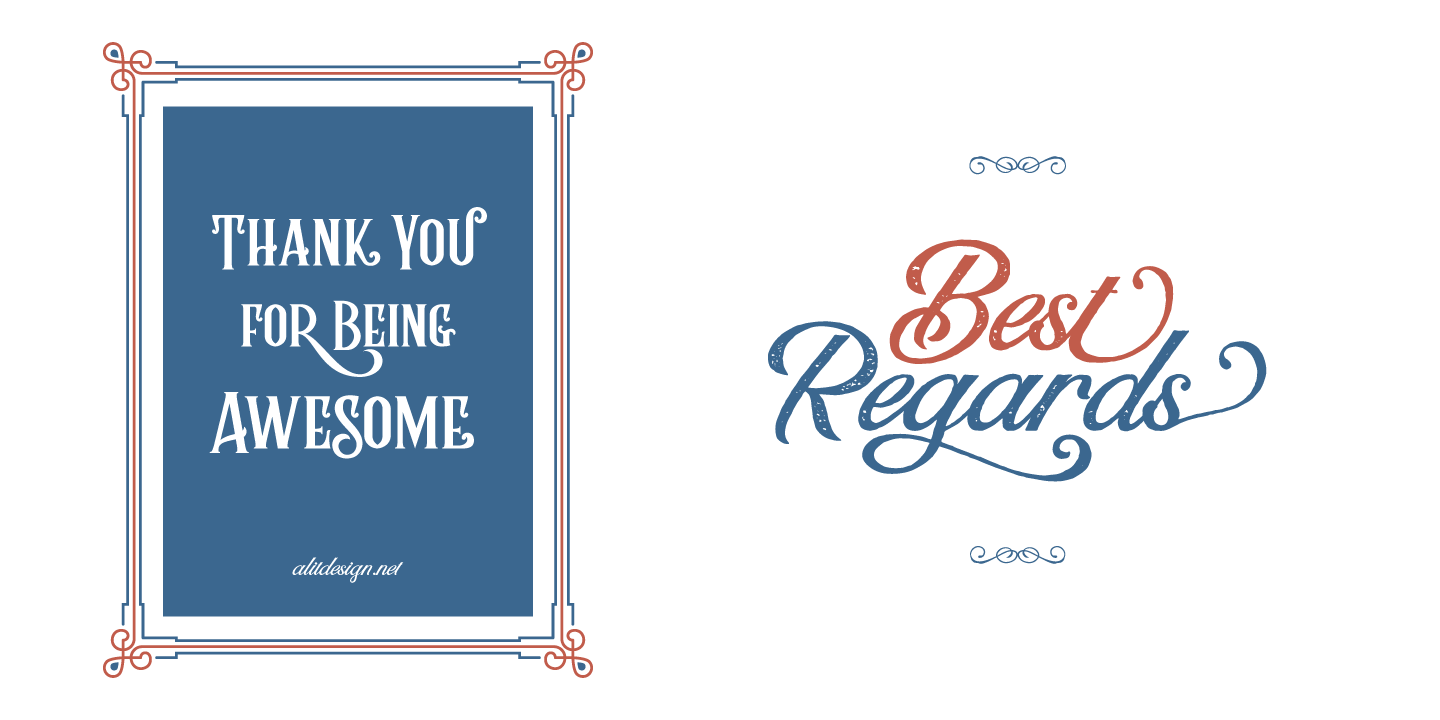
Rumble Brave Vintage Font is perfect for motorcycle club branding, vintage garage signage, retro brewery logos, classic barber shop identities, rugged outdoor adventure companies, nostalgic Americana projects, vintage boxing event posters, and authentic heritage brand communications.
What makes Rumble Brave Vintage Font truly exciting is its fearless ability to embody the raw courage and rebellious spirit of vintage American culture through boldly weathered letterforms that capture the essence of motorcycle brotherhood, blue-collar pride, and old-school toughness. This commanding typeface features distinctive distressed characteristics with authentic vintage wear that instantly conveys strength, independence, and timeless masculine appeal, making it the perfect choice for brands celebrating American heritage, honoring working-class values, and communicating with audiences who appreciate authentic vintage craftsmanship and rebellious spirit.
The Rumble Brave Vintage Font family includes regular, condensed, bold, and heavily distressed variations, complemented by vintage ornaments and heritage alternates that enhance the authentic Americana atmosphere, providing designers with comprehensive tools for creating nostalgic brand experiences and vintage communications that resonate with audiences seeking genuine American heritage and rebellious authenticity.
Heritage brands and vintage-inspired businesses will find Rumble Brave Vintage Font Free Download essential for creating authentic representations of classic American culture that connect with audiences who value traditional craftsmanship and rebellious independence. This versatile typeface excels in both rugged outdoor applications and intimate vintage branding, maintaining its heritage character while delivering maximum nostalgic impact across all Americana contexts.
The font's weathered construction demonstrates exceptional attention to both vintage authenticity and commercial durability, with robust proportions that ensure commanding presence while maintaining excellent legibility in diverse heritage environments. From motorcycle shop signs to vintage product packaging, this rebellious typeface maintains its American spirit while providing the reliability needed for comprehensive heritage brand applications. Vintage brands appreciate how this font effortlessly communicates courage, independence, and distinguished American vintage design excellence through superior heritage-inspired typography.